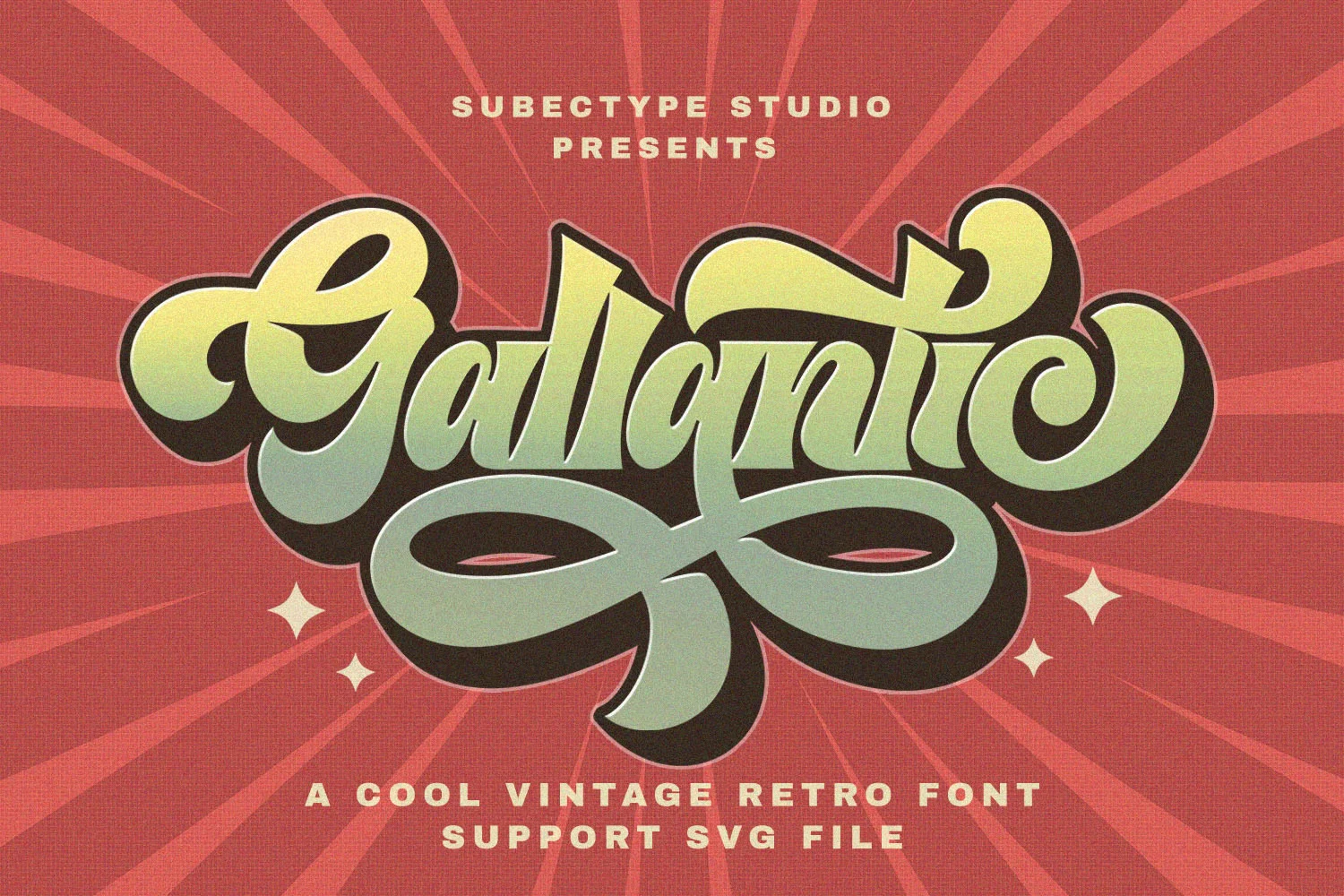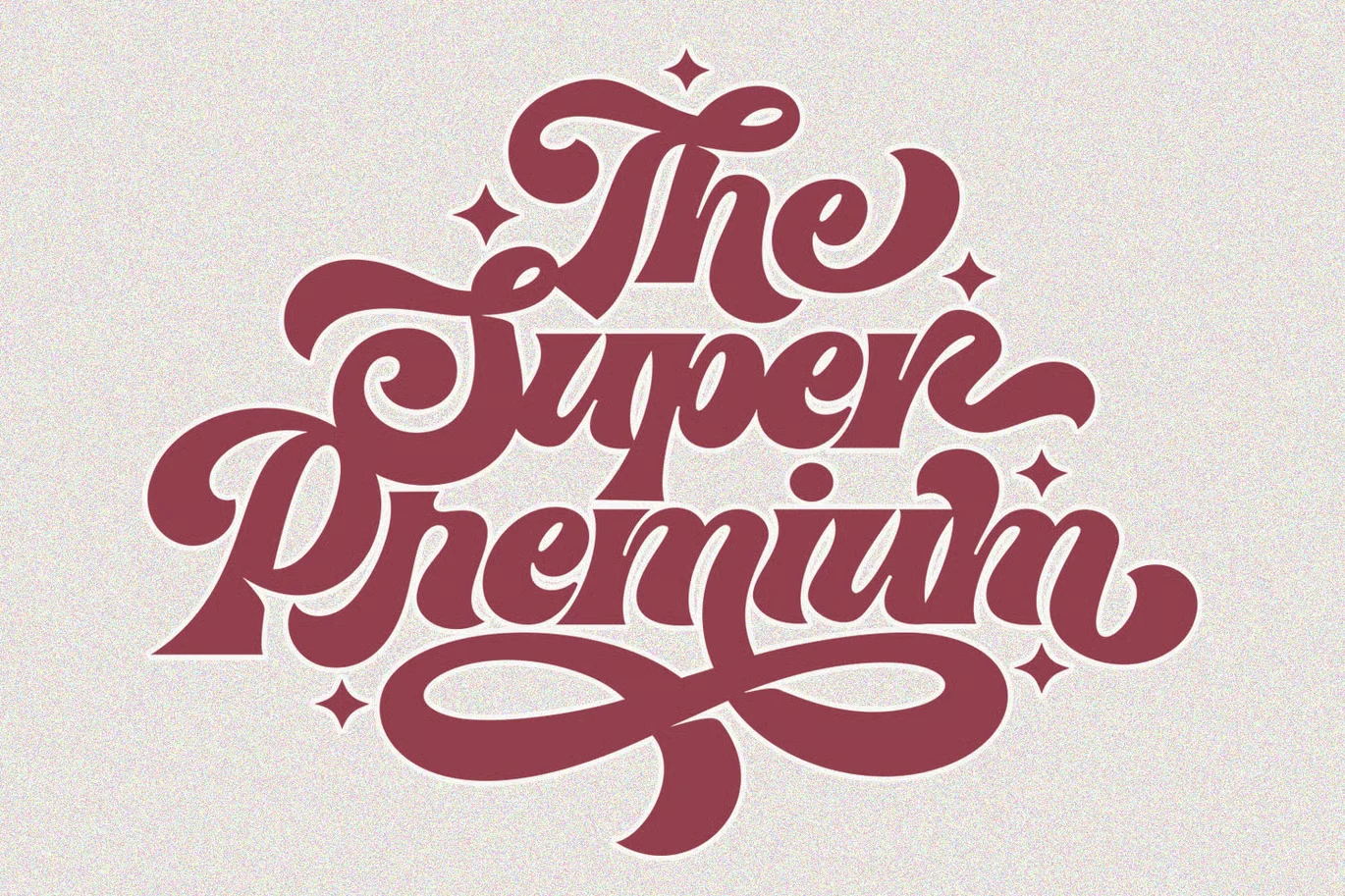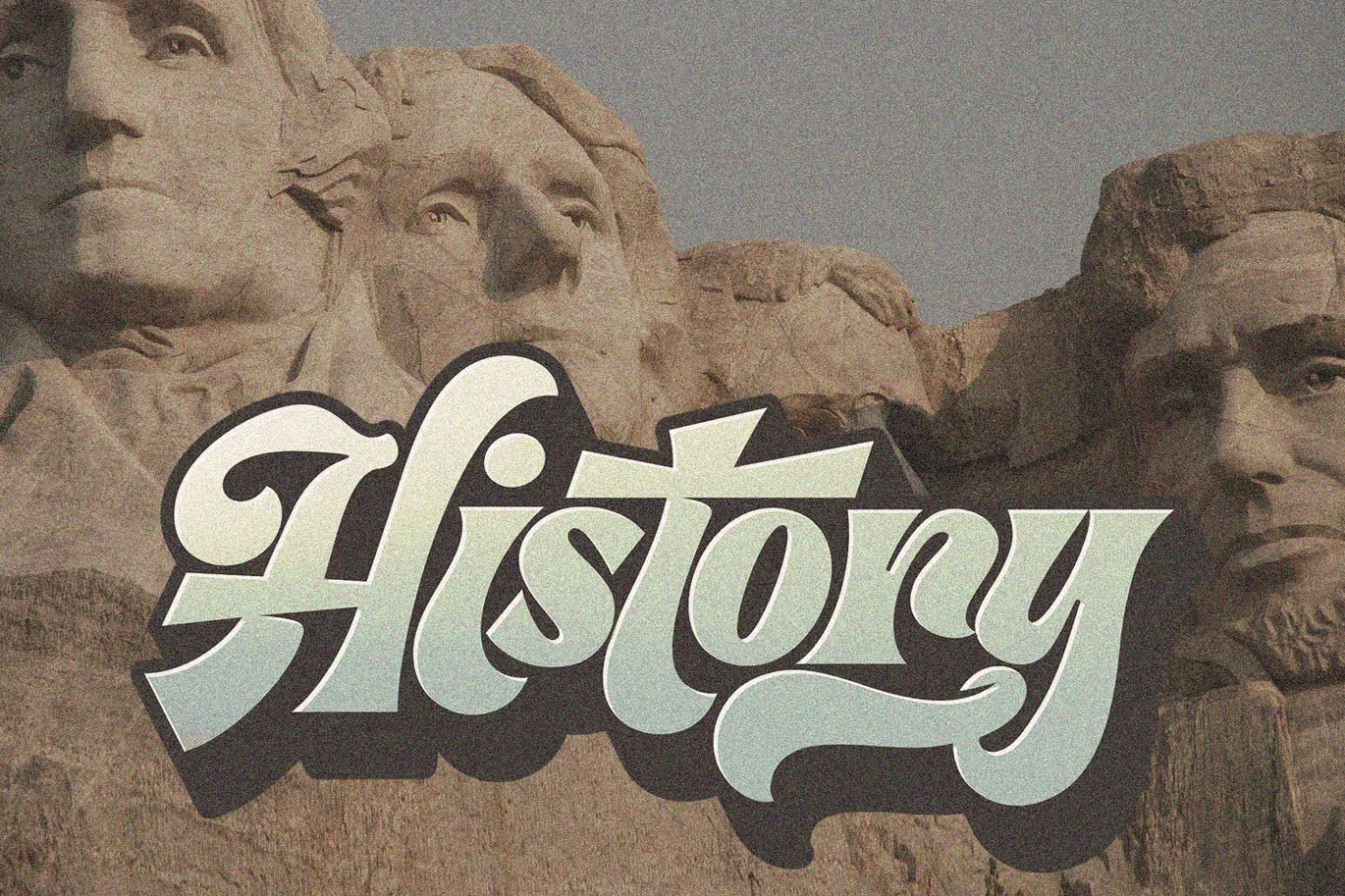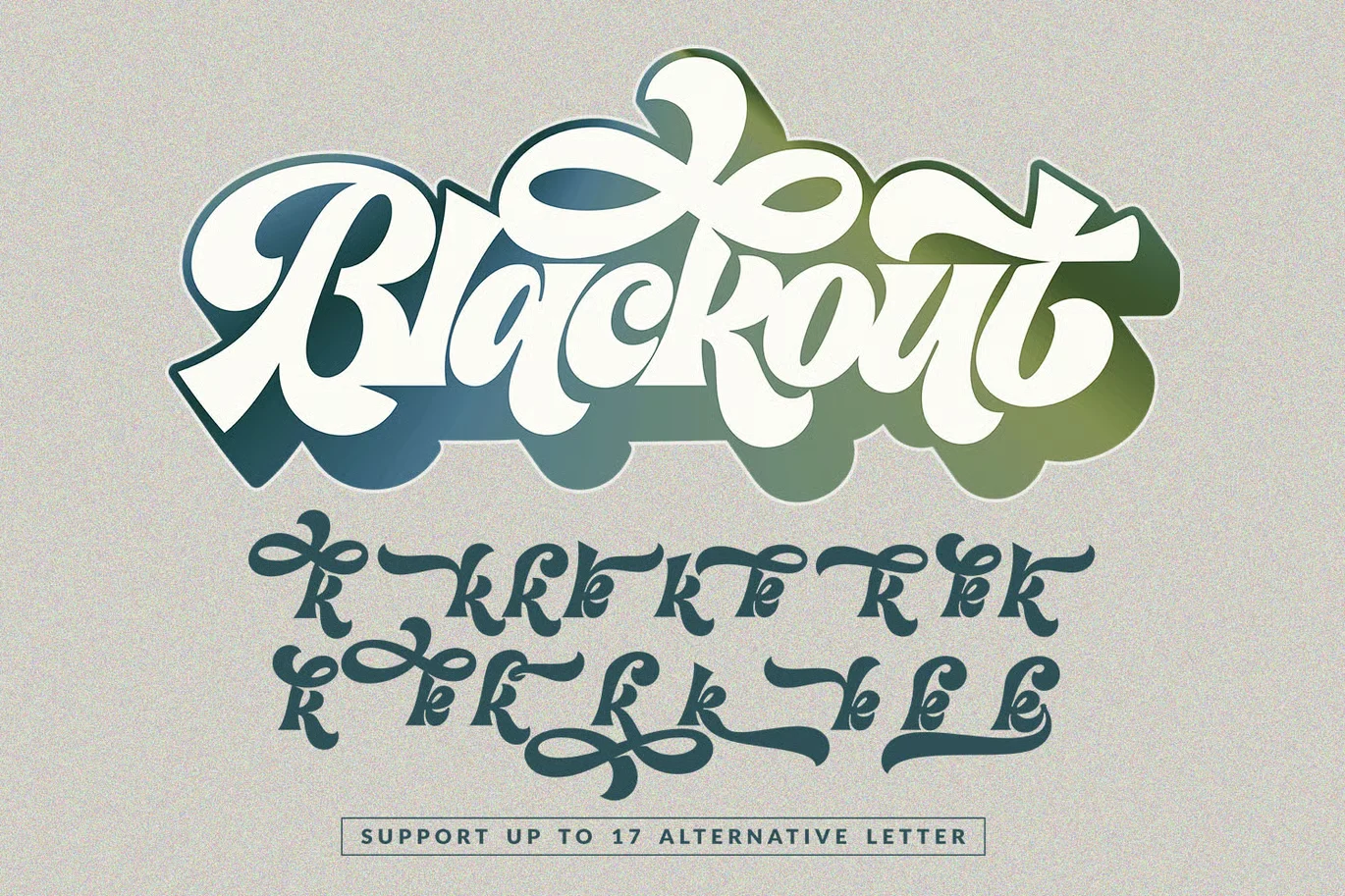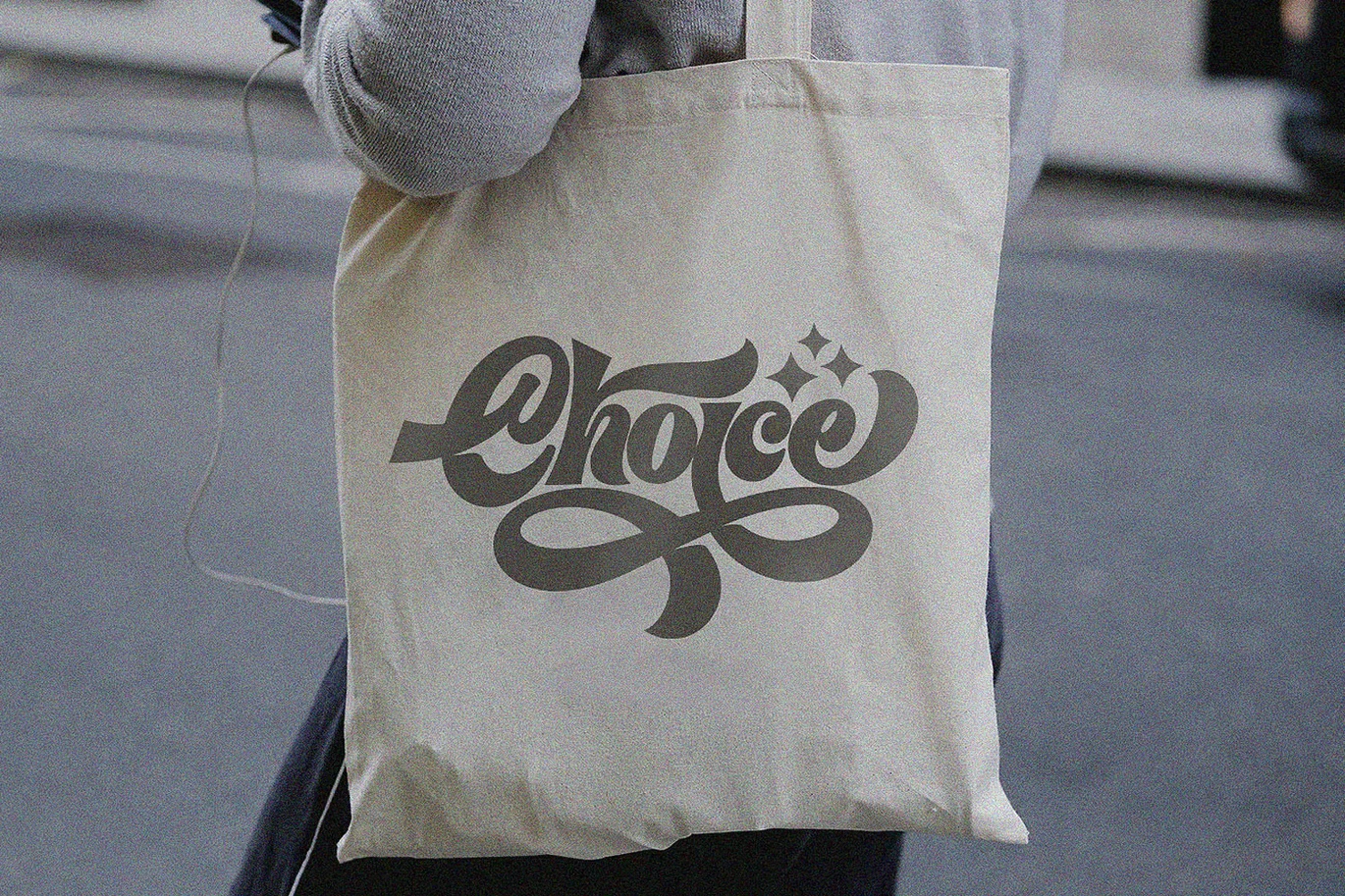
Gallantic Font
About Gallantic Font
I’m a typographer and graphic designer with a focus on nostalgic design work. While building out a branding package for a retro fashion label, I needed a typeface with vintage character and a bold presence. That’s when I discovered the Gallantic Font. I was scrolling through font libraries and saw its unique mix of 70s and 80s vibes. It immediately stood out. I downloaded the font, tested it on logo drafts and poster layouts, and it just worked. The flow, the energy, the groove—it all clicked. I’m writing this review because this font deserves more attention.
What is Gallantic Font?
Gallantic Font is a vintage retro font inspired from retro typography and lettering from the 70s and 80s. It brings together groovy design elements, bold typography style, and smooth, flowing shapes. This typeface was made for more than just decoration. It adds voice to any layout without feeling forced.
The designer behind this font is Subectype Studio, known for creating bold display fonts with strong character. Gallantic is one of their standout styles. It gives you a throwback to lettering in the 70s and early 80s while still looking sharp on modern platforms like iPad and Adobe Illustrator. It’s crafted with purpose and built for creative professionals who want a little extra charm in their typography.
Subectype Studio also ensured that Gallantic isn’t just a fun font. It’s a practical one too. Whether you’re working in print, vector, or digital, the font performs well. This makes it a great pick for designers who want vintage aesthetics with modern usability.
Features of the Gallantic Font
The style pulls from the groovy curves of 70s lettering and the bold looks of 80s design. This combination creates a smooth yet powerful presence. Gallantic is a vintage retro font that works well in both playful and professional settings.
You can use it for fashion lookbooks, sticker packs, or branding projects that need that extra flair. It also fits perfectly in apps like Procreate, Cricut projects, and Corjl. The bold structure stands up well in print, while the elegant curves give it visual softness.
This font is perfect for shirts, apparel, greeting cards, posters, social media, and even party invites. Its creative character and special styling make it feel premium without being complicated. It’s easy to install, quick to use, and instantly adds personality to your design.
Where can you use this font?
The Gallantic Font is ideal for any project that calls for retro design. It fits beautifully in branding, product packaging, greeting cards, or posters. Use it in fashion or apparel lines, especially when combining it with bold typography. The font brings instant personality to stickers, silhouette art, decor design, or magazine layouts.
If you’re working on a 70s or 80s inspired project, this typeface is made for that theme. It even feels right at home on digital platforms like iPad drawing apps, Corjl templates, or Cricut setups.
Its strong retro typography makes it a favorite for display use. That means headers, logos, and social media graphics really benefit from its bold, expressive curves. It handles print just as well as digital, making it flexible across all formats.